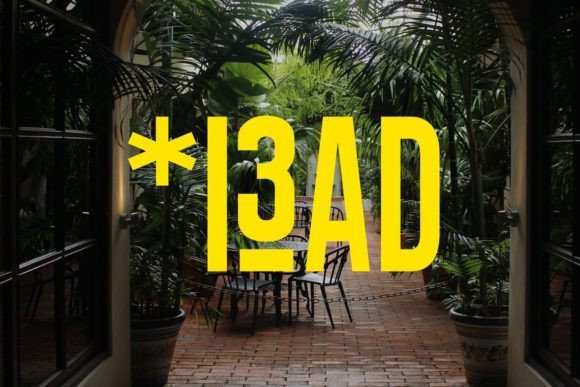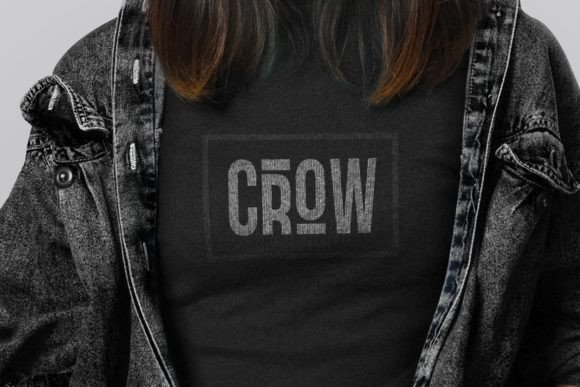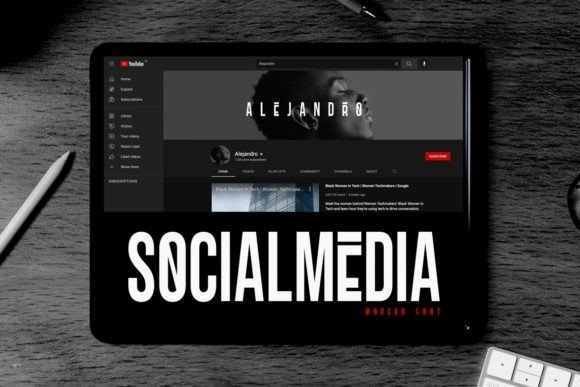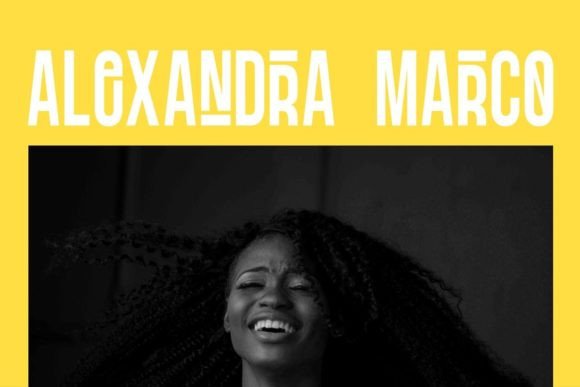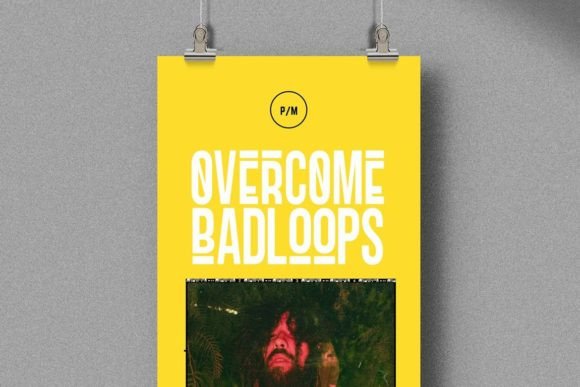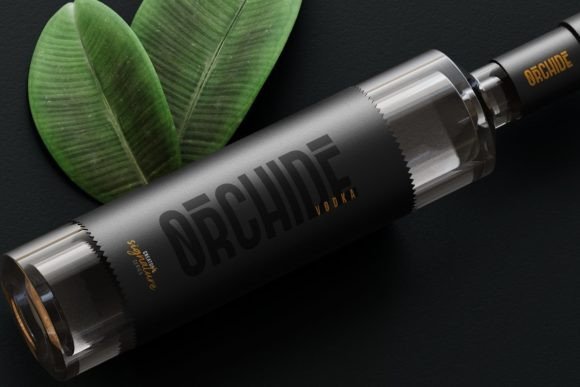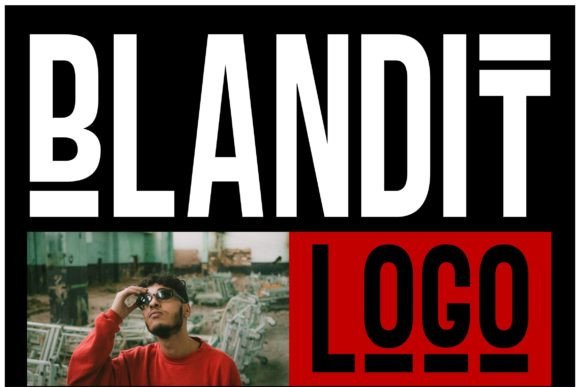
Blandit Font: Elevate Your Designs with Elegance and Sophistication
In the world of typography, fonts play a crucial role in conveying the tone and personality of a design. For designers and crafters looking to add a touch of elegance and sophistication to their projects, Blandit Font is an excellent choice. This exclusive and attractive display font is designed to make a statement, with its thick lines, bold curves, and sharp corners creating a sense of refinement and luxury.
The Unique Characteristics of Blandit Font
Blandit Font boasts a contemporary design that sets it apart from other fonts. Its thick lines and bold curves give it a distinctive look that’s perfect for titles, logos, and other creative projects. The sharp corners add a touch of sophistication, making it ideal for designs that require a level of elegance and refinement. Whether you’re working on a branding project, a website, or a marketing campaign, Blandit Font is sure to make a lasting impression.
Blandit Font is a versatile font that’s perfect for a wide range of creative projects. Its elegant design makes it suitable for:
- Logos and branding: Create a lasting impression with a logo that exudes sophistication and elegance.
- Title pages and headings: Add a touch of refinement to your titles and headings with Blandit Font’s bold and elegant design.
- Marketing and advertising: Make your marketing materials stand out with a font that’s designed to grab attention.
- Web design: Elevate your website’s design with a font that’s both modern and elegant.
Why Choose Blandit Font?
With so many fonts available, why choose Blandit Font? Here are just a few reasons why designers and crafters love this exclusive display font:
- Unique design: Blandit Font’s distinctive design sets it apart from other fonts, making it perfect for designers who want to create something truly unique.
- Elegance and sophistication: Add a touch of refinement and luxury to your designs with Blandit Font’s elegant design.
- Versatility: Blandit Font is perfect for a wide range of creative projects, from logos and branding to web design and marketing materials.
- Easy to read: Despite its bold design, Blandit Font is easy to read, making it perfect for titles, headings, and other creative projects.
Tips for Using Blandit Font
To get the most out of Blandit Font, here are a few tips to keep in mind:
- Use it sparingly: Blandit Font is a bold font, so use it sparingly to avoid overwhelming your design.
- Pair it with other fonts: Experiment with pairing Blandit Font with other fonts to create a unique and visually appealing design.
- Adjust the size: Play around with different font sizes to find the perfect balance for your design.
Blandit Font is an exclusive and attractive display font that’s perfect for designers and crafters looking to add a touch of elegance and sophistication to their projects. With its thick lines, bold curves, and sharp corners, this font is sure to make a lasting impression. Whether you’re working on a branding project, a website, or a marketing campaign, Blandit Font is an excellent choice. So why settle for an ordinary font when you can elevate your designs with the elegance and sophistication of Blandit Font?